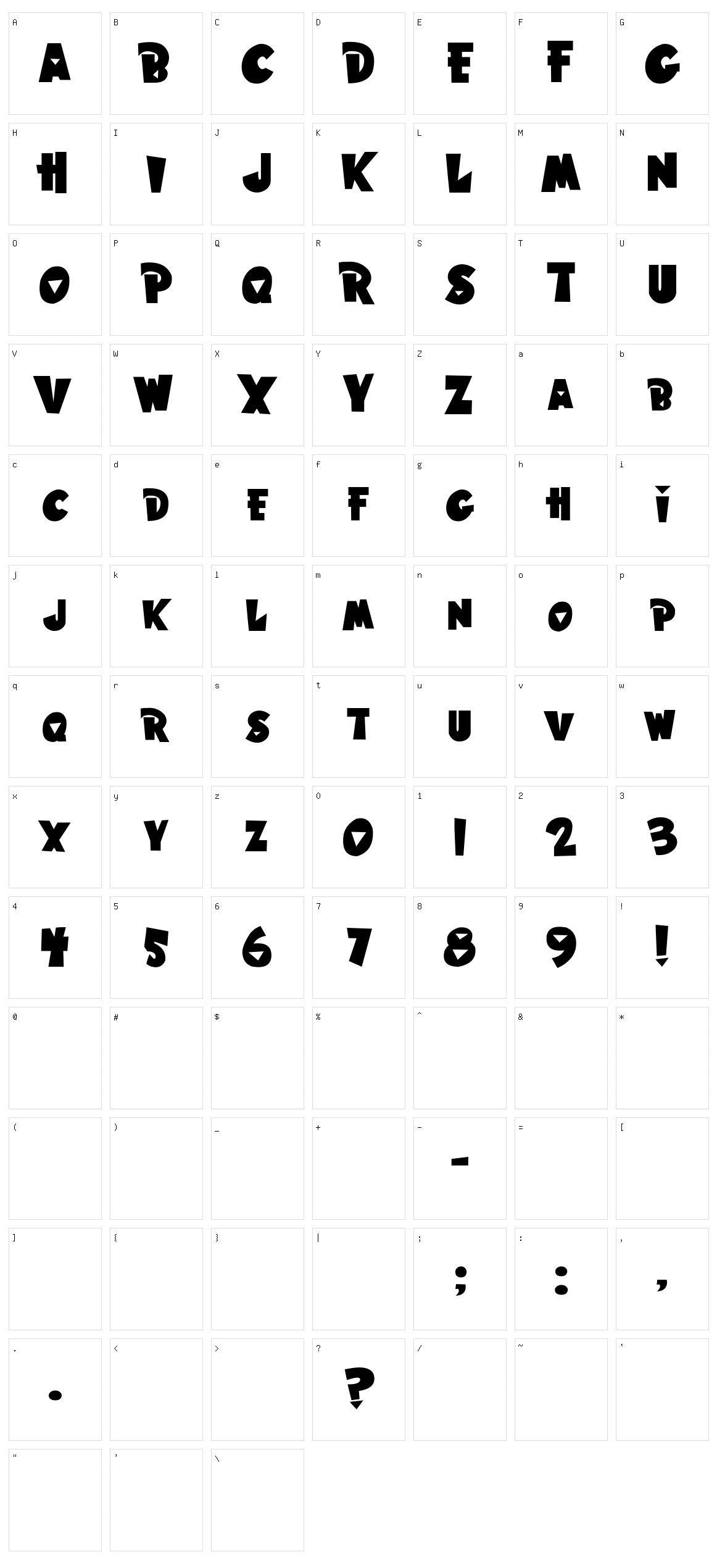
i just don't have the time. Let's just say i picked up a project i started longgg ago out of shear boredom. As you'll notice, the punctuation is extremely minimal as well as the symbols. This was no accident. If you purchase a license for this or any of my fonts, i'll add the missing ones. Hope you enjoy!.